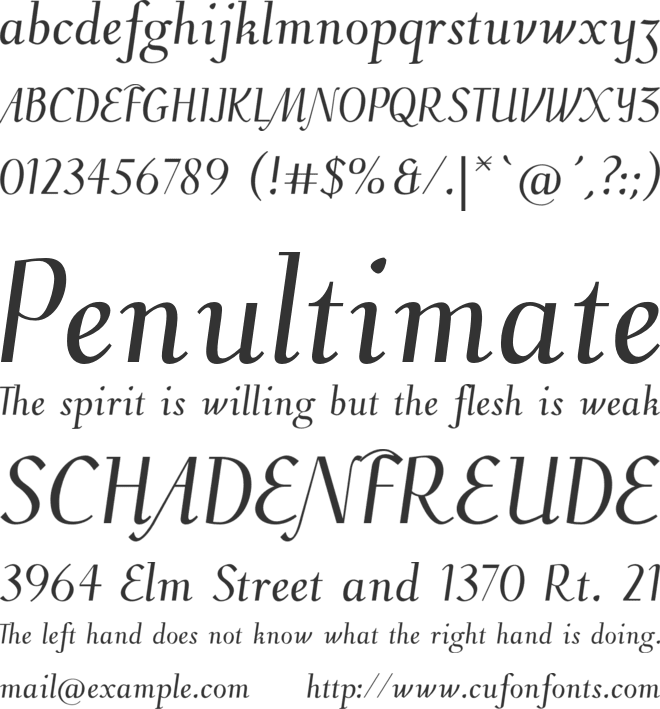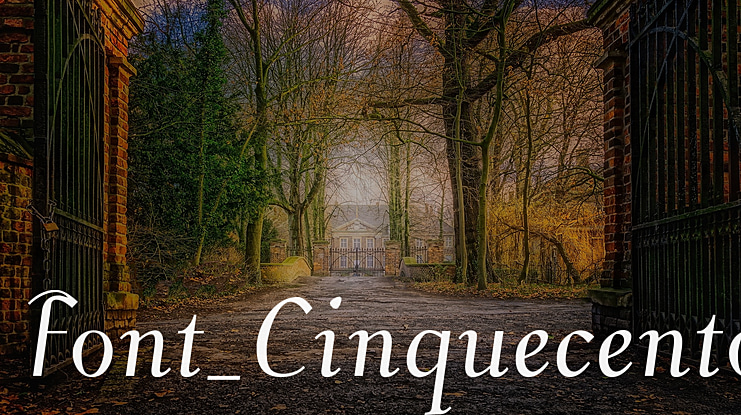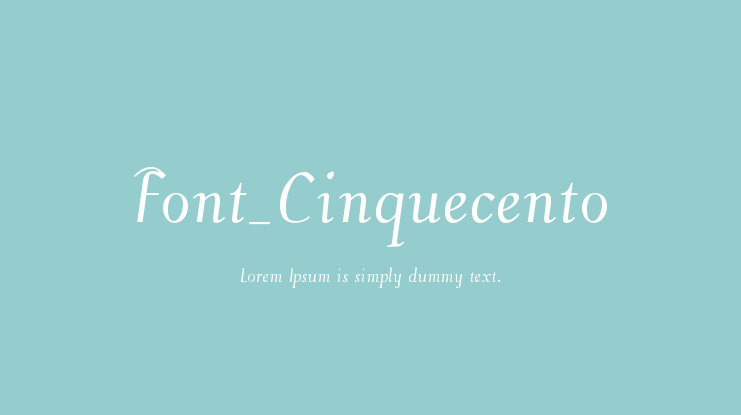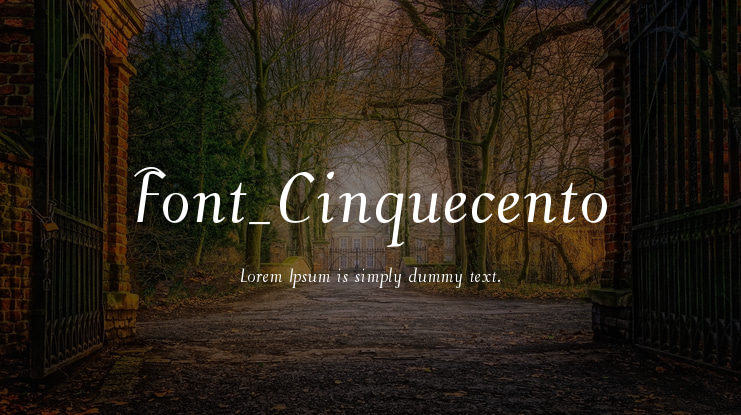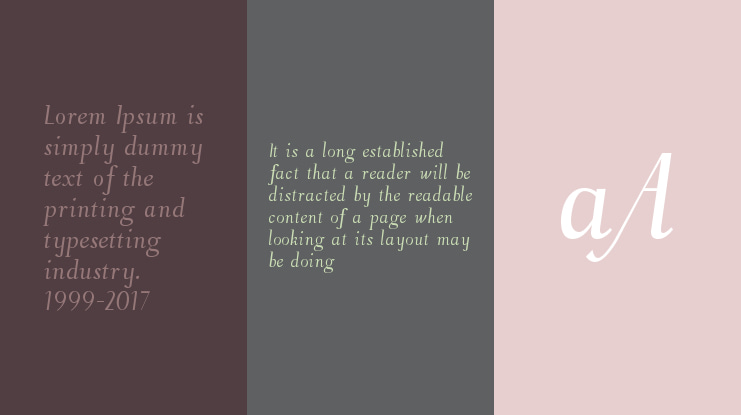
Font_Cinquecento Font
"Cinquecento" is an italic serif font created by Michele Alessandro Smaldini, Matteo Lucarelli, Giovanni Dilauro and Marija Andelkovic in 2020, and it's inspired by 16th century chancellery glyphs from Giovan Francesco Cresci's "Essemplare di più sorti lettere" (1560). It presents OpenType features.